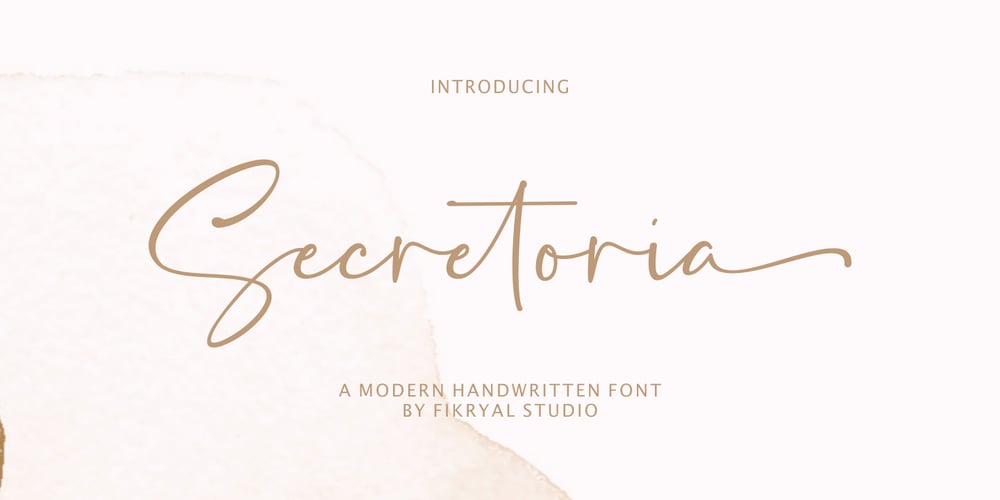
Secretoria Font Family was designed by Muhammad Fikry and published by Fikryal. Secretoria contains 1 styles and family package options. Secretoria is a beautiful Script font perfect for crafting, branding, invitation, stationery, wedding designs, social media posts, advertisements, product packaging, product designs, label, photography, watermark, special events or anything.Secretoria with full set of uppercase and lowercase letters, swash alternates, ligatures,multilingual symbols, numerals and punctuation.